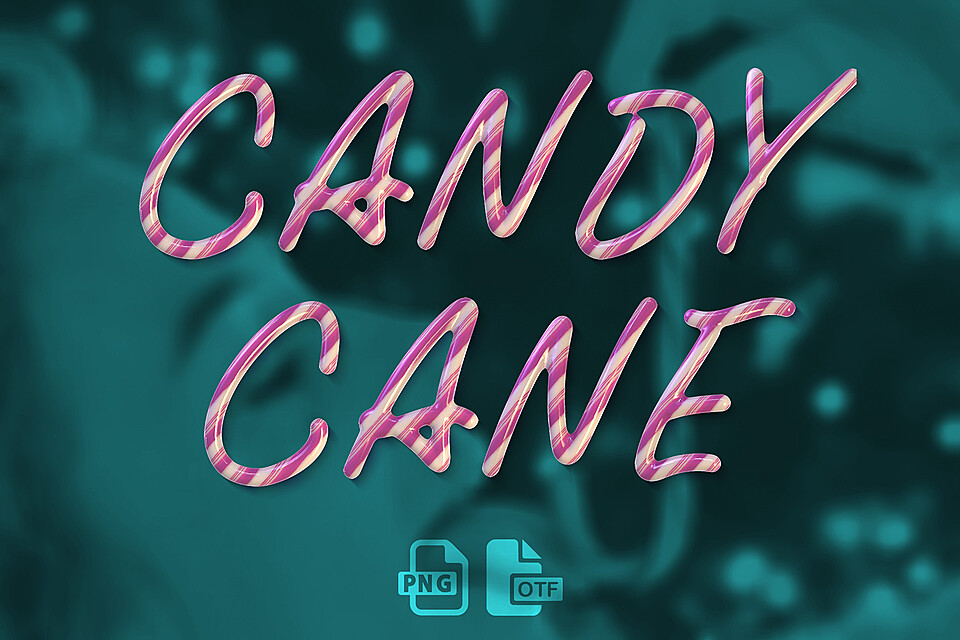
Candy Cane Opentype SVG Font and PNG Files
MS Candy Cane Font - Opentype SVG Color Font and PNG Files
Each letter is modelled and rendered in a 3D Application, also converted into an Opentype SVG (Color Font)
Basic western uppercase letters
Numbers
Basic Punctuation and Symbols